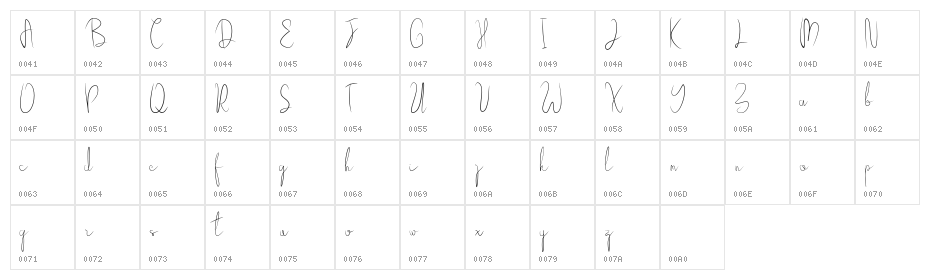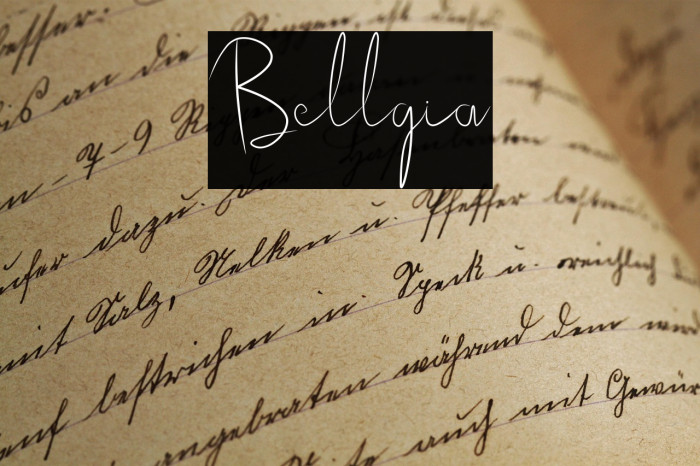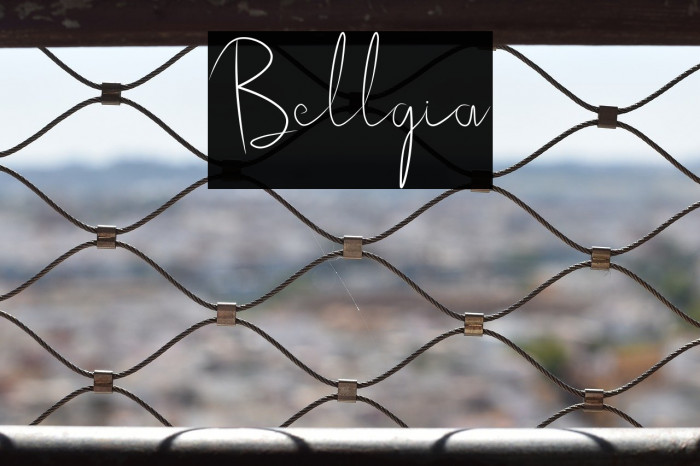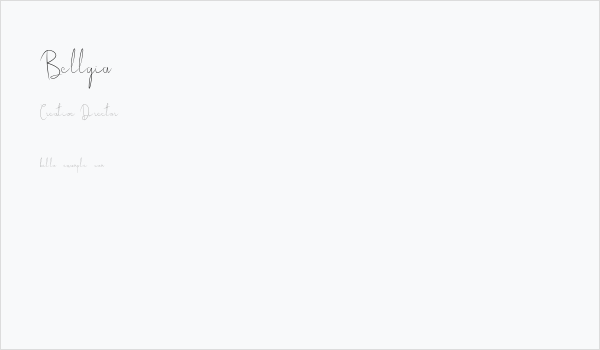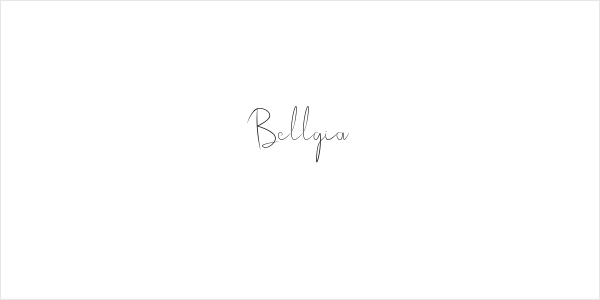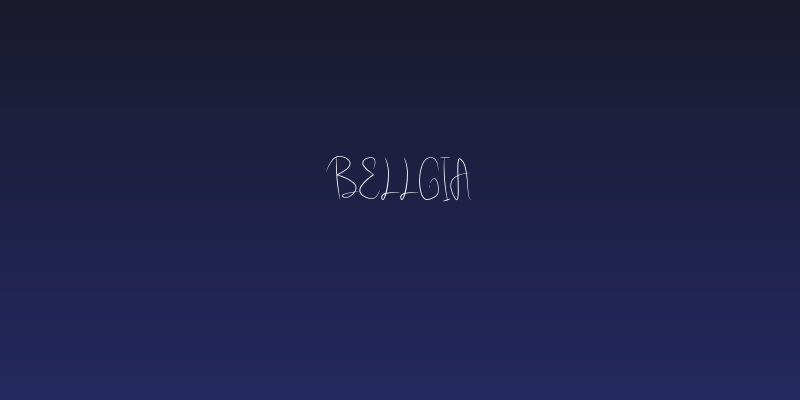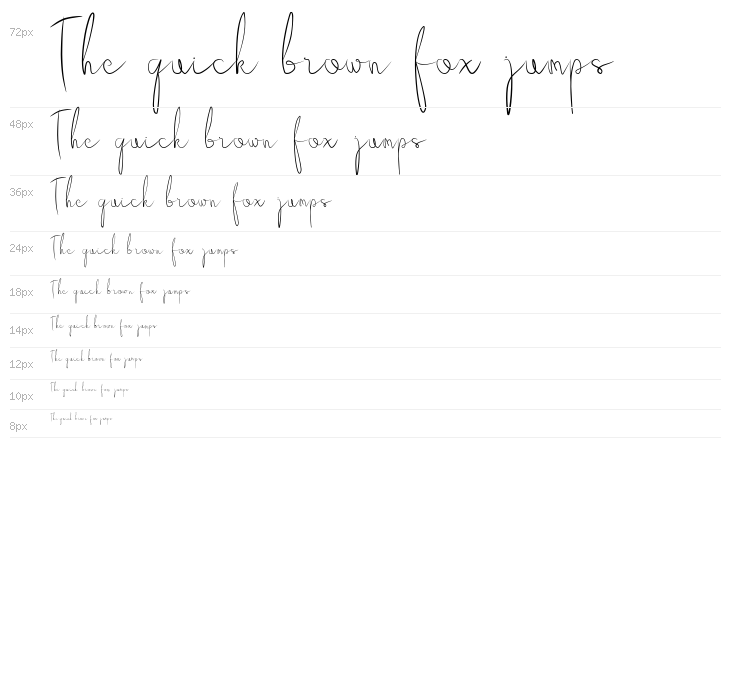
Bellgia Font
Bellgia Description
This font features an elegant, flowing script style with a modern twist. The characters are elongated and connected, creating a sense of fluidity and movement. The uppercase letters are tall and slender, while the lowercase letters maintain a consistent height, adding to the font's cohesive appearance. The strokes are thin and delicate, with a slight variation in thickness that adds a touch of sophistication. The overall design is airy and light, making it suitable for projects that require a touch of elegance and style. The font's unique character shapes and smooth curves make it stand out, providing a distinctive look that is both contemporary and timeless.